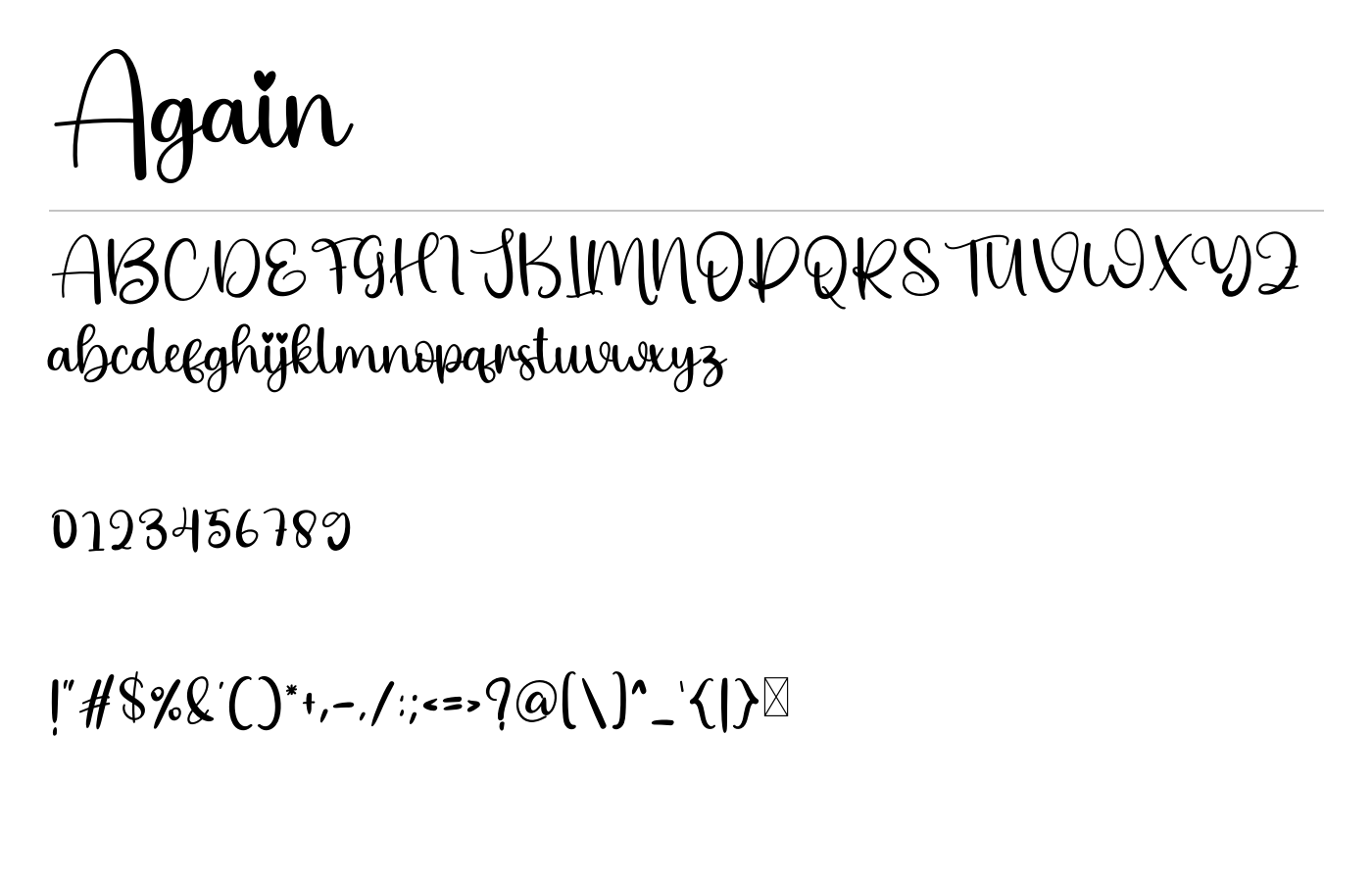
Again Font is a playful and charming script typeface with a handwritten feel, featuring smooth, flowing strokes and whimsical details like a heart-shaped dot on the "i." Its light weight and medium contrast create a friendly and approachable vibe, making it perfect for invitations, greeting cards, or branding that seeks a personal and creative touch. This font works best in designs that want to communicate warmth, cheerfulness, and casual elegance.
Again Font
About Again Font